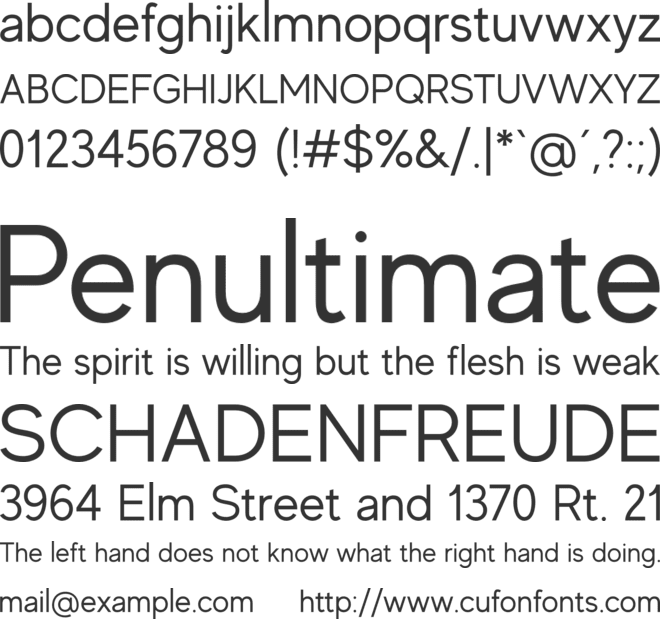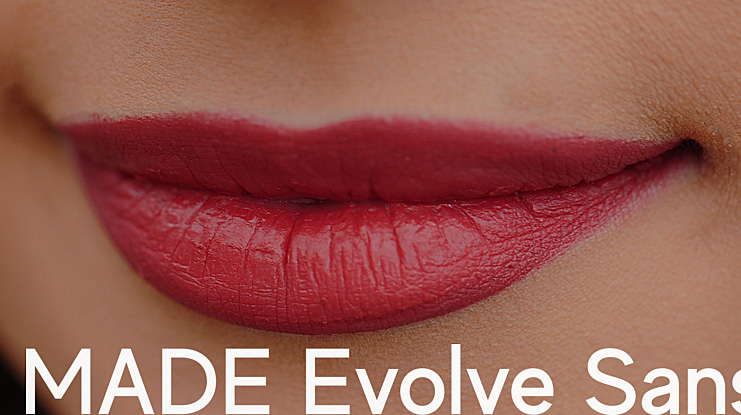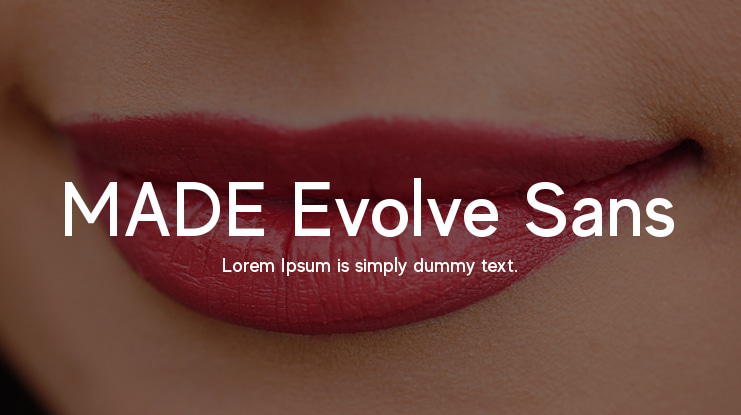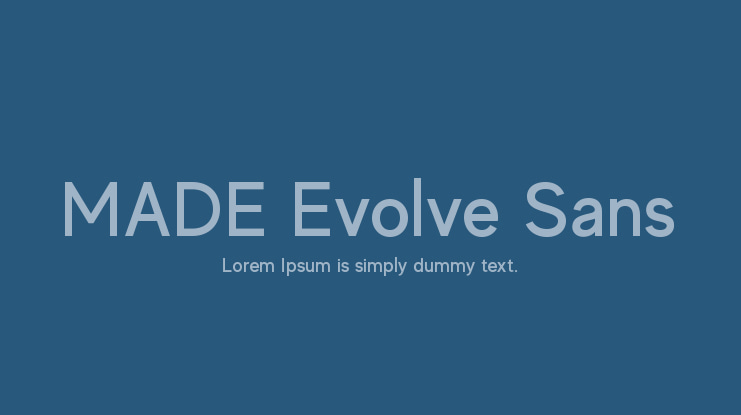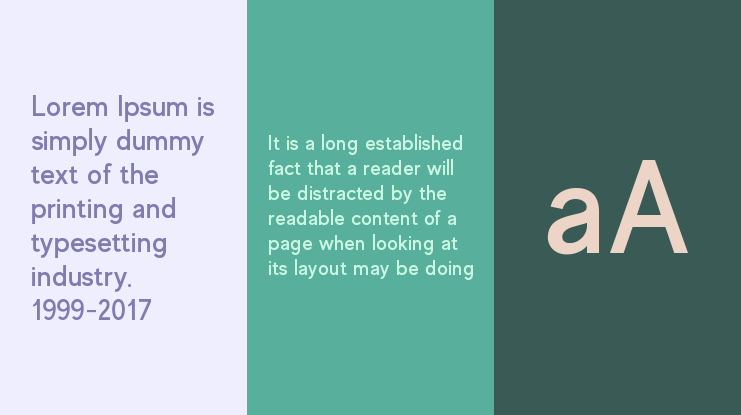
MADE Evolve Sans Font Family
MADE Evolve is modern futuristic sans serif fontfamily. This combination of futuristic and geometric to create a modern design. Evolve is includes 10 fonts, 5 sans serif weights and 5 weights with futuristic caps, thereby creating more variability. This is irreproachable sans serif to diversify your headlines, branding visual identity, poster, logo, magazines and etc.